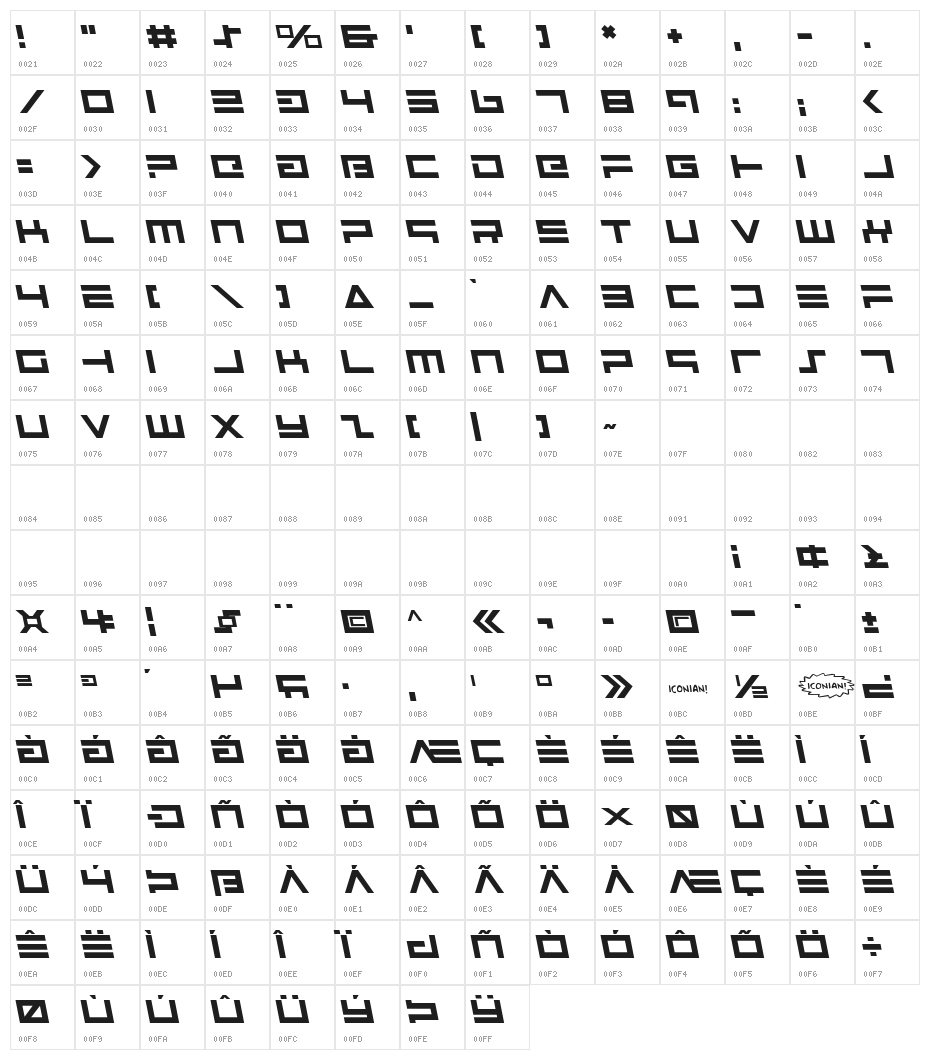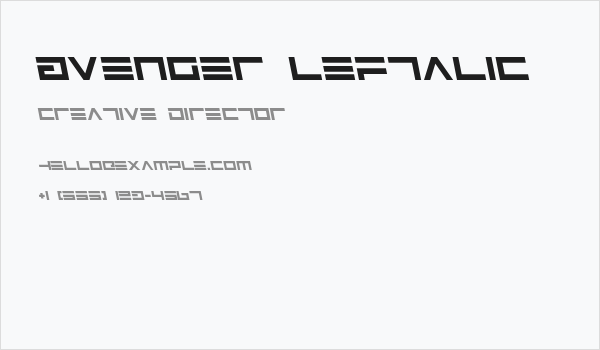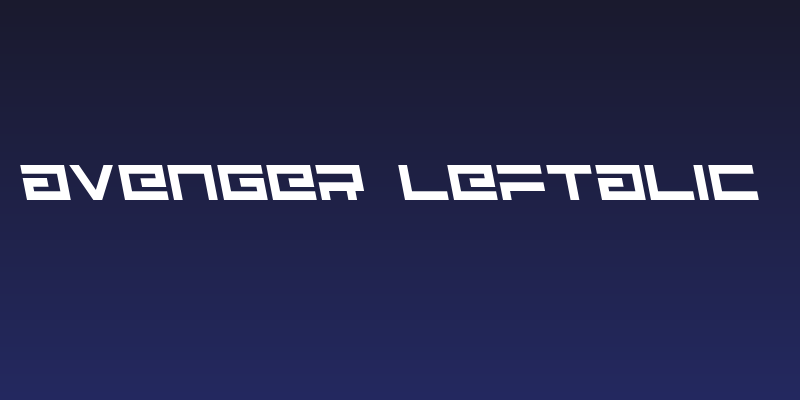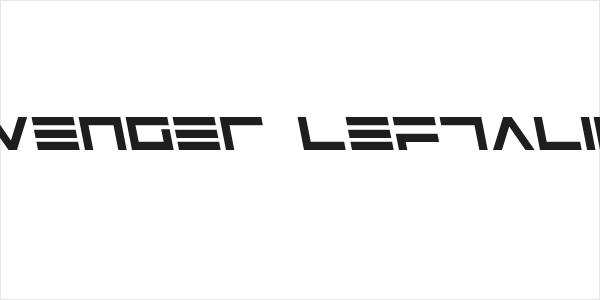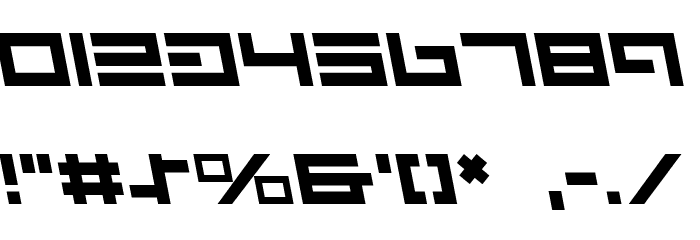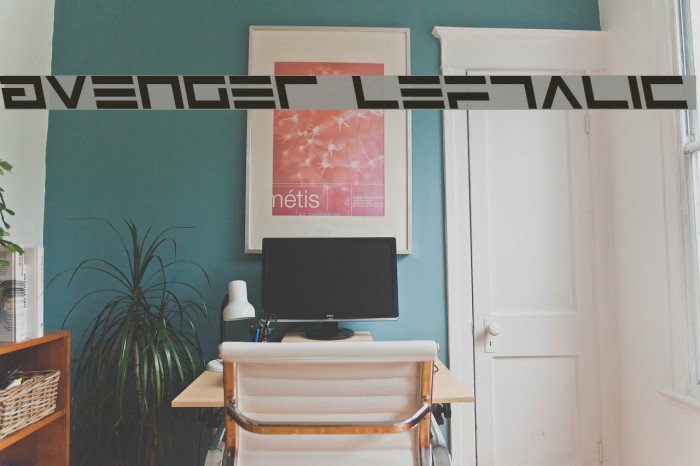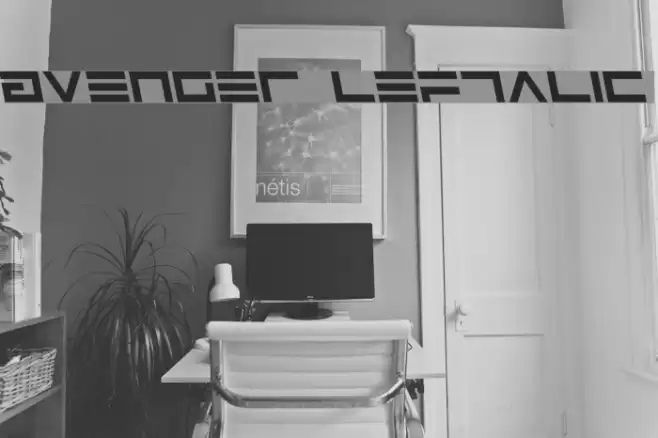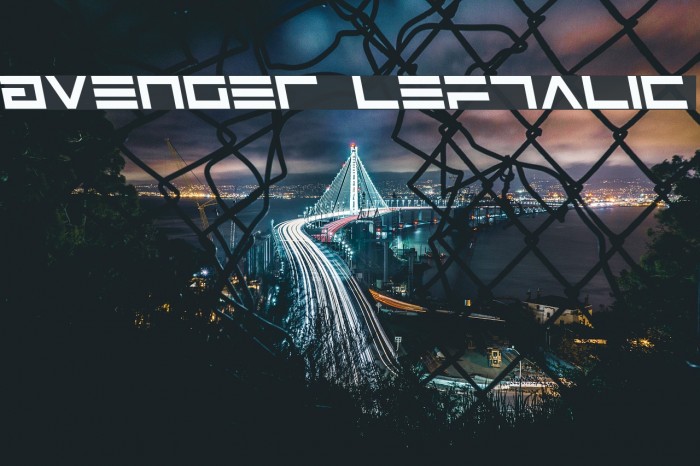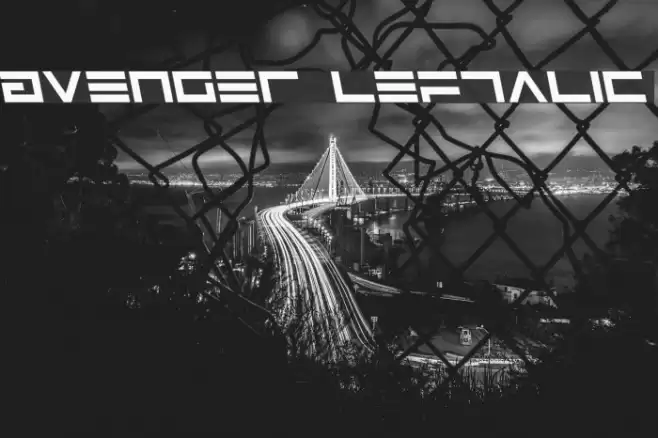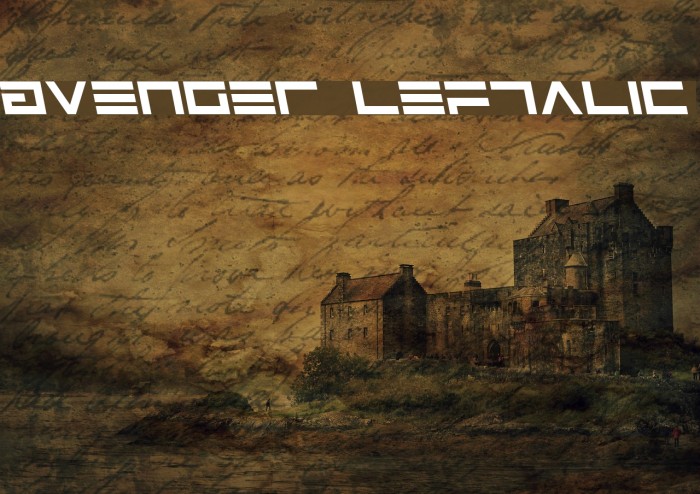
Avenger Leftalic Font
Avenger Leftalic Description
This font features a bold and angular design with a futuristic and geometric aesthetic. The characters are constructed with sharp, straight lines and a consistent thickness, giving it a strong and impactful appearance. The uppercase and lowercase letters maintain a uniform style, with the lowercase letters mirroring the uppercase in a slightly smaller size. The numbers and special characters follow the same design principles, ensuring a cohesive look across all glyphs. The font's unique style makes it stand out, suitable for projects that require a modern and edgy feel.
| Proposed Projects | Ideal for sci-fi themed projects, video game titles, movie posters, and branding that requires a modern and edgy look. |